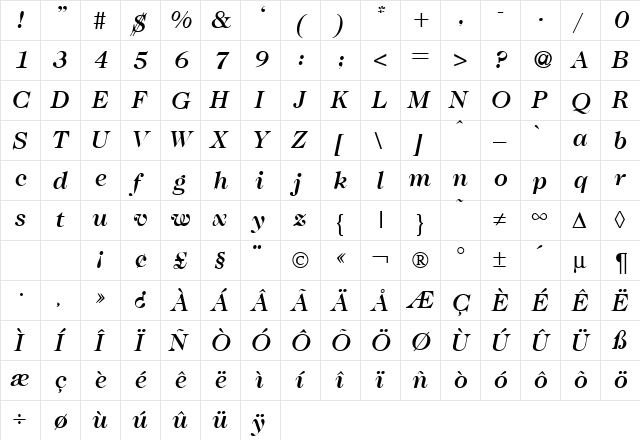
Caslon335Medium RegularItalic
Design Context for Caslon335Medium Typeface
Caslon335Medium is a composed and adaptable typeface that performs quietly and consistently across a wide range of design contexts. The slanted form adds forward momentum and visual energy.